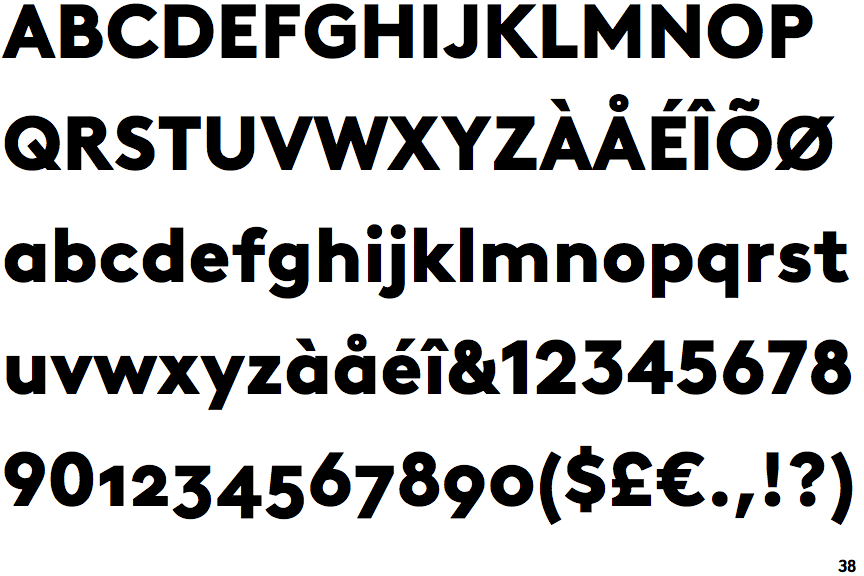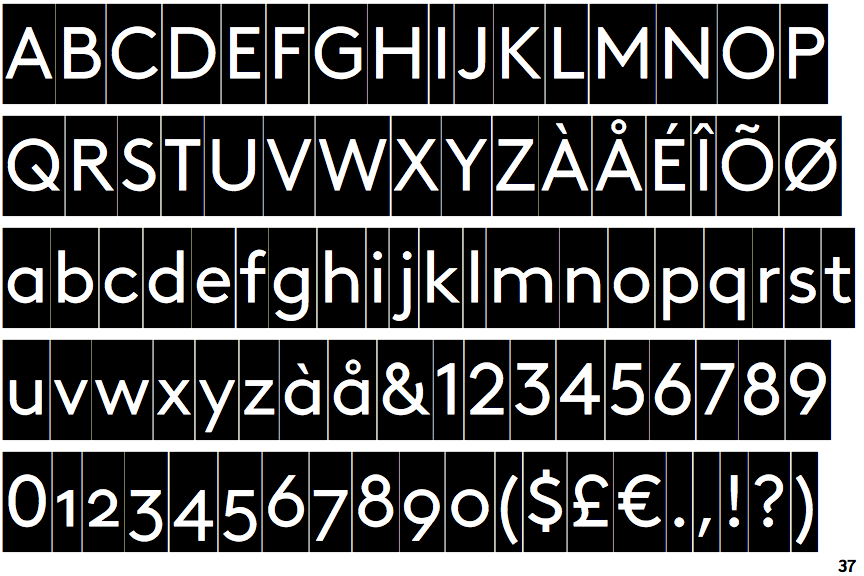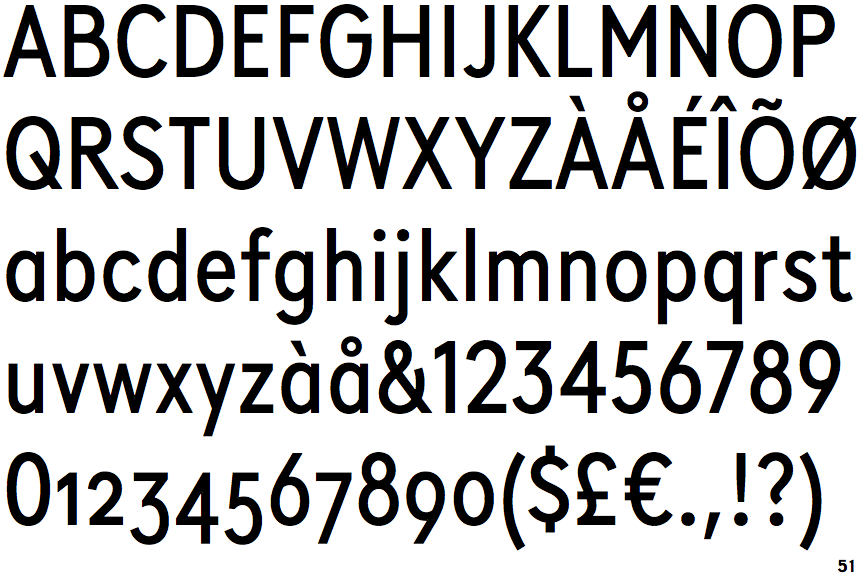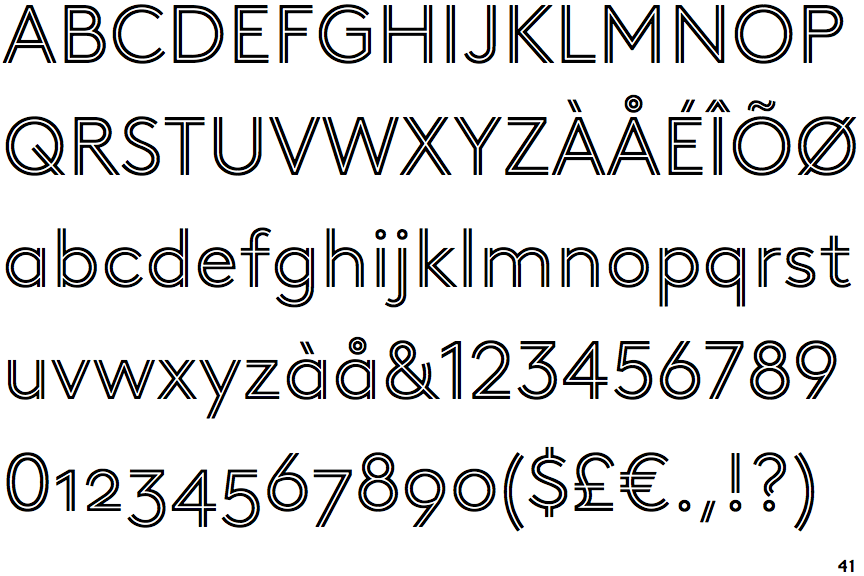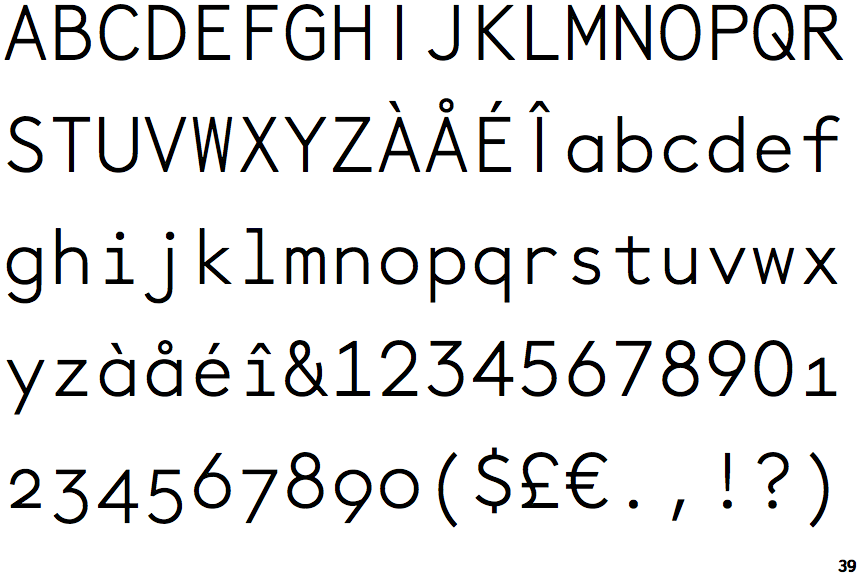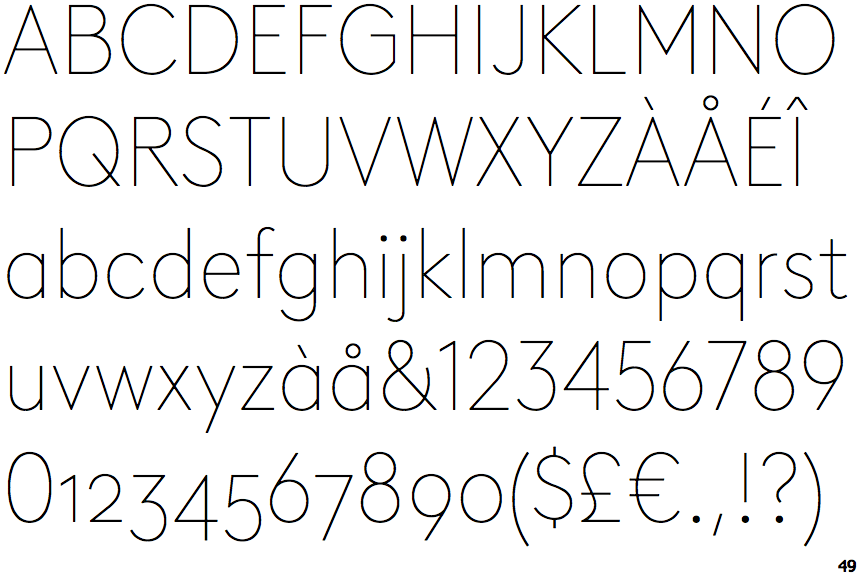
Brown Font Lineto . brown font family is an extremely recommended serif sans style font created by swiss graphic designer aurele sack from lausanne,. The font is available in all formats (ll brown woff2, ll brown woff, ll brown ttf, ll brown eot) and applicable to the website,. These are the most common typefaces in the database, but there are many more. A sans serif typeface with 19 styles, available from adobe fonts for sync and. Four weights, each with italics, all. When ll brown was ready for release in 2011, it was a versatile toolbox: When ll brown was ready for release in 2011, it was a versatile toolbox: download ll brown. explore brown pro available at adobe fonts.
explore brown pro available at adobe fonts. When ll brown was ready for release in 2011, it was a versatile toolbox: brown font family is an extremely recommended serif sans style font created by swiss graphic designer aurele sack from lausanne,. The font is available in all formats (ll brown woff2, ll brown woff, ll brown ttf, ll brown eot) and applicable to the website,. download ll brown. Four weights, each with italics, all. When ll brown was ready for release in 2011, it was a versatile toolbox: A sans serif typeface with 19 styles, available from adobe fonts for sync and. These are the most common typefaces in the database, but there are many more.
Brown Font Lineto A sans serif typeface with 19 styles, available from adobe fonts for sync and. The font is available in all formats (ll brown woff2, ll brown woff, ll brown ttf, ll brown eot) and applicable to the website,. When ll brown was ready for release in 2011, it was a versatile toolbox: download ll brown. brown font family is an extremely recommended serif sans style font created by swiss graphic designer aurele sack from lausanne,. These are the most common typefaces in the database, but there are many more. Four weights, each with italics, all. explore brown pro available at adobe fonts. A sans serif typeface with 19 styles, available from adobe fonts for sync and. When ll brown was ready for release in 2011, it was a versatile toolbox: